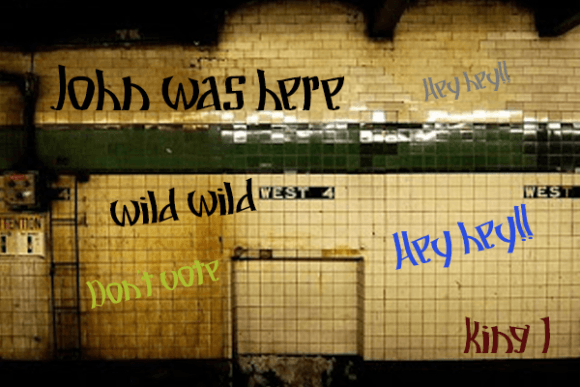
Introduction to Markre Font
Have you ever been walking down the street, taking in the vibrant street art and graffiti, and wished you could bring that same level of creativity to your design projects? That’s exactly what the Markre Font can help you achieve. This unique handwriting marker font is a design resource that’s perfect for adding a touch of whimsy and personality to your work.
Created by Alberto Villanueva in 2017, the Markre Font has been added to web fonts and vectors, making it easy to incorporate into your creative projects. With its high-quality design and transparent background, this font is a valuable tool for designers looking to add some extra flair to their work.
Key Features of Markre Font
- High-quality, professional font designed for creative projects, perfect as a design resource for graphic designers, artists, and writers.
- Unique, hand-drawn style with a transparent background, ideal for creating visually appealing and modern designs.
- Includes a wide range of characters, including uppercase and lowercase letters, numbers, and punctuation marks, making it suitable for various creative projects.
- Designed with a high resolution (300 DPI), ensuring crisp and clear typography even at large sizes.
- Perfect for use in digital and print media, including websites, social media, posters, flyers, and business cards.
Honest Review: Markre Font
I recently had the chance to work with the Markre Font, and I must say, it’s been a game-changer for my creative projects. As a designer, I’m always on the lookout for high-quality design resources that can elevate my work, and Markre Font definitely fits the bill.
- ✨ High-quality font with a unique and modern design
- ✨ Perfect for creating eye-catching titles and headings
- ✨ Supports transparent backgrounds, making it ideal for creative projects that require a touch of sophistication
- ⚠️ Limited character set, which can make it challenging to use for longer blocks of text
- ⚠️ Not suitable for use in small font sizes, as the letters can become difficult to read
Overall, I’m really impressed with the Markre Font. Its high-quality design and unique features make it a great addition to any designer’s toolkit. While it may have a few limitations, I believe it’s well worth the download – especially considering it’s free!
How to Use Markre Font
The Markre Font is a high-quality, versatile design resource that can elevate your creative project. With a transparent background, it’s perfect for adding a touch of elegance to your designs.
Tips for Getting the Most Out of Markre Font
Experiment with different font sizes, colors, and styles to create a unique look. Use the font in combination with other design elements to add depth and visual interest to your project.
The Markre Font is perfect for a variety of creative projects, including logos, business cards, brochures, and website headers. Its elegant design and transparent background make it a great choice for adding a touch of sophistication to your designs.